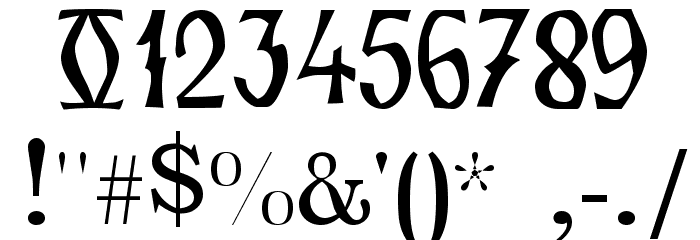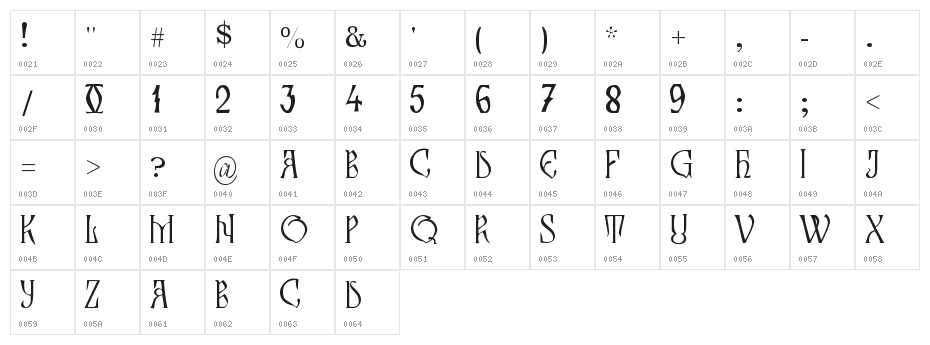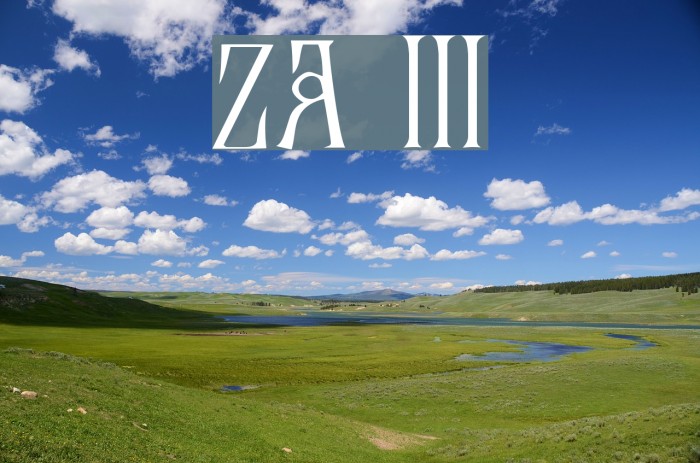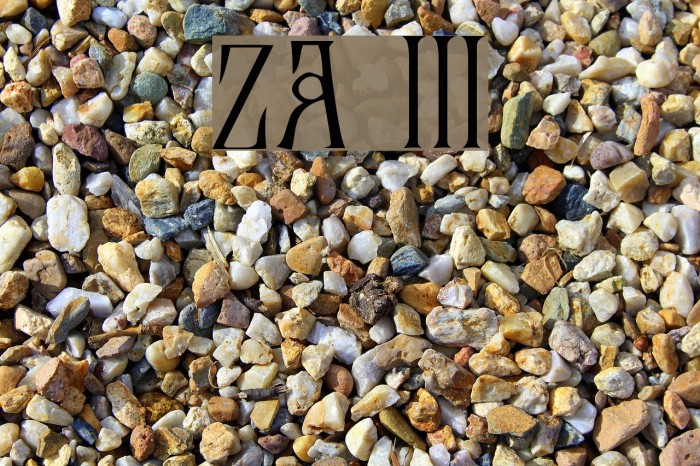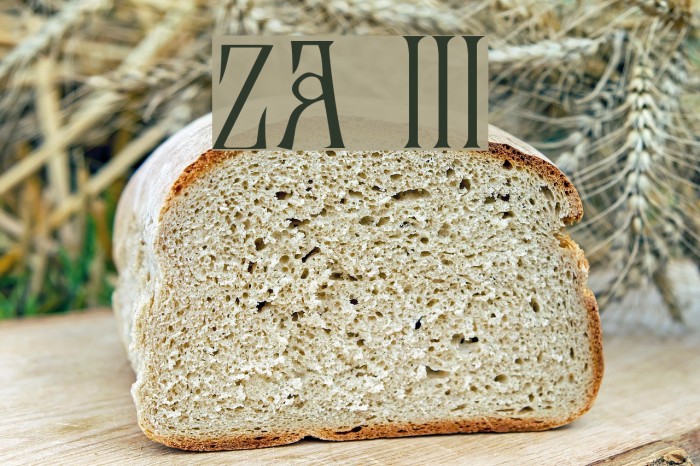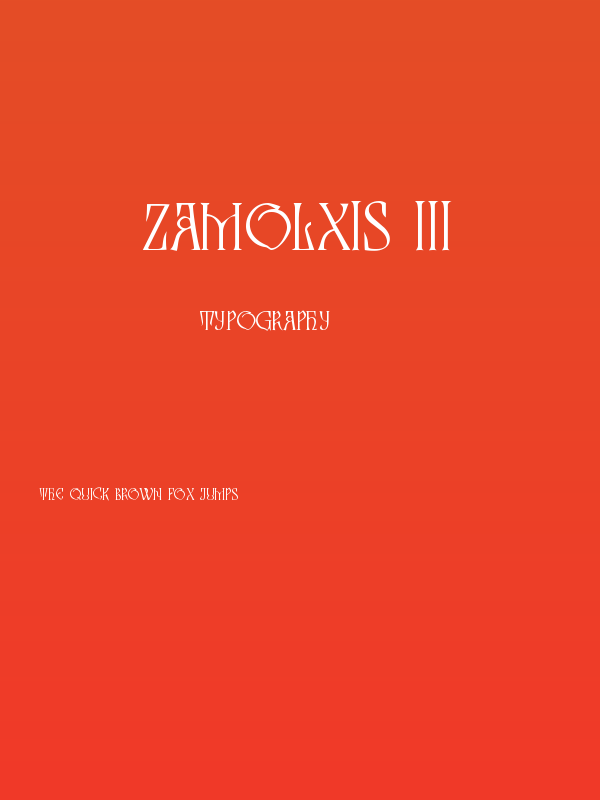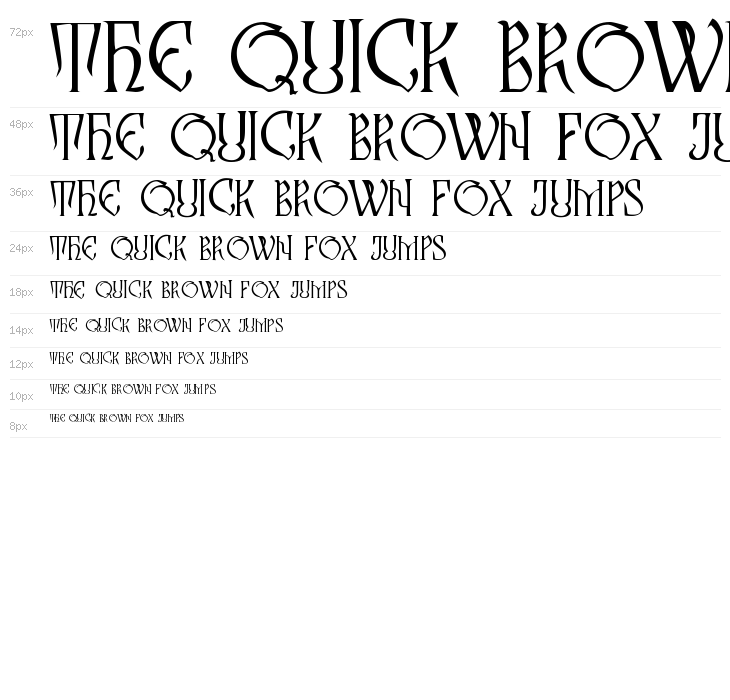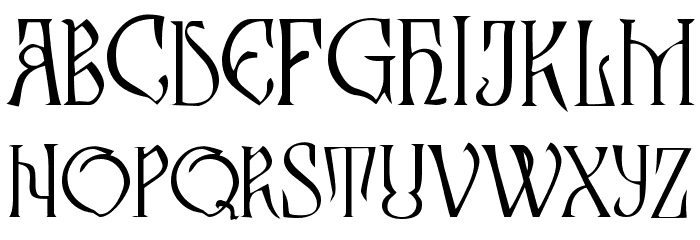
Zamolxis III Font
Zamolxis III Description
This font features a unique blend of traditional and modern elements, characterized by its sharp, angular serifs and distinct geometric shapes. The uppercase letters exhibit a strong presence with their bold, commanding strokes, while the lowercase letters maintain a consistent style that complements the uppercase. The numerals are equally bold, with a slightly condensed appearance that enhances readability. Special characters are designed with the same attention to detail, ensuring a cohesive look across all glyphs. This font's intricate design makes it suitable for projects that require a touch of elegance and sophistication.